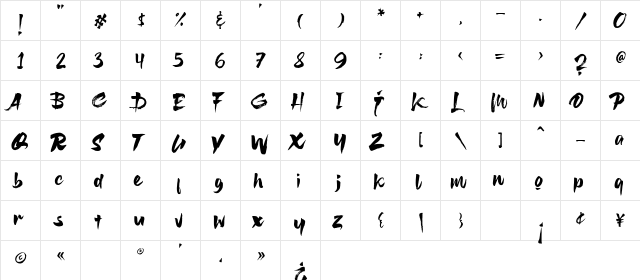
Asmokumis Regular
| Designer | Motion Tail Studio |
Design Context for Asmokumis Typeface
Asmokumis is a composed and adaptable typeface that performs quietly and consistently across a wide range of design contexts.